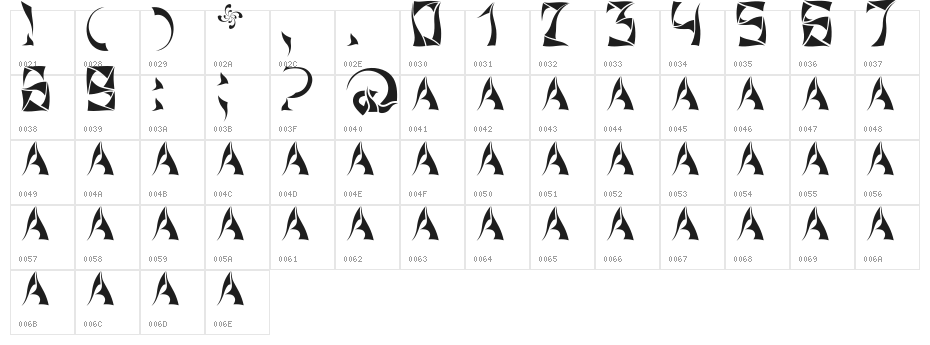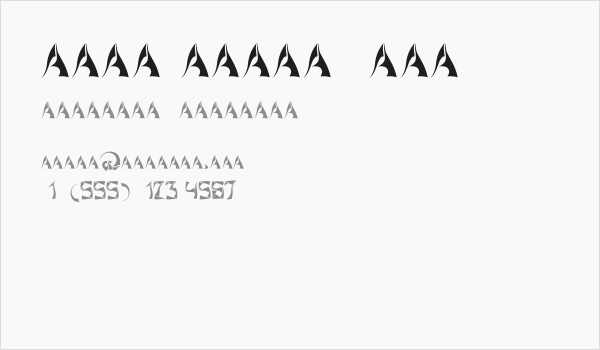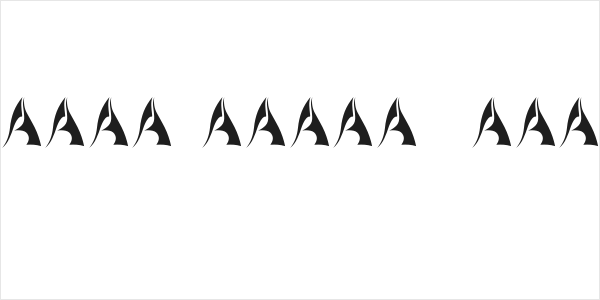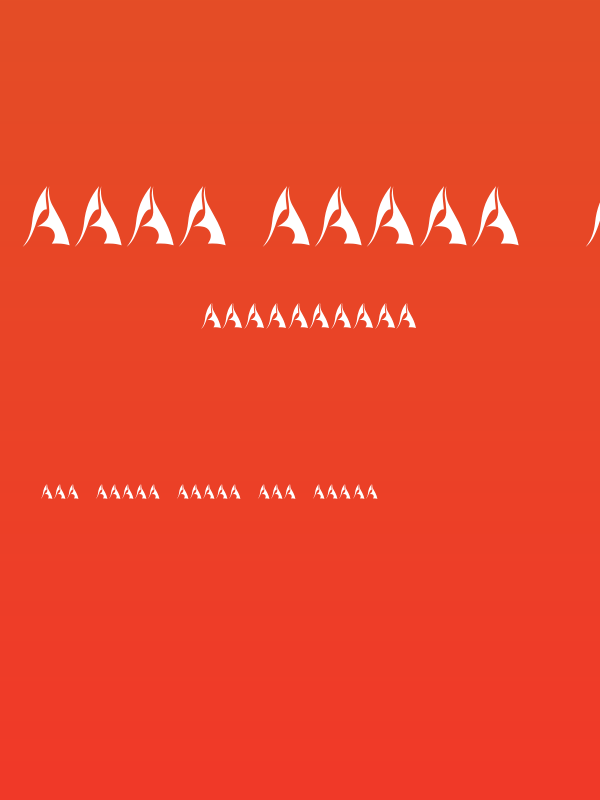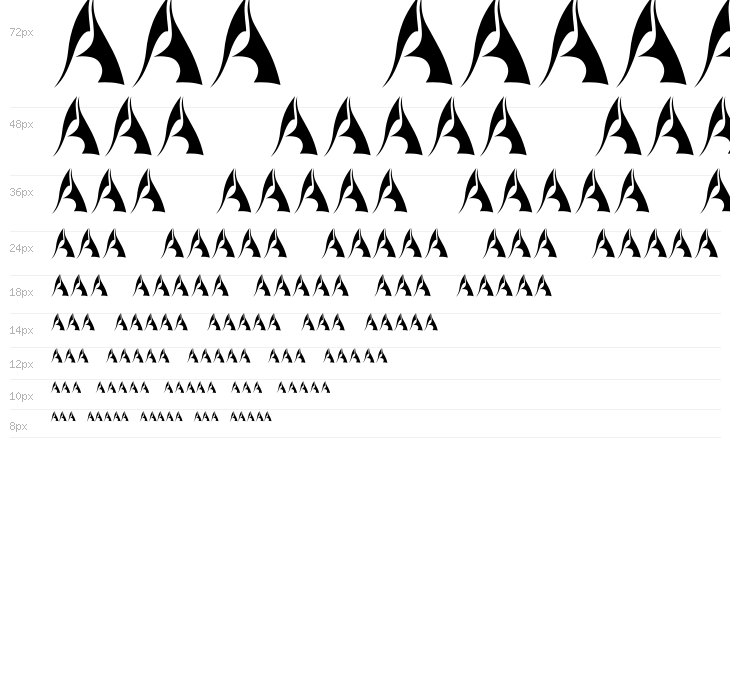
Xorx_windy Cyr Font
Xorx_windy Cyr Description
This font features a highly decorative and abstract design, characterized by sharp angles and bold, sweeping curves. Each character is uniquely stylized, creating a sense of movement and dynamism. The font's artistic flair is evident in its intricate detailing, making it stand out as a statement piece. The numbers and special characters maintain the same artistic integrity, with each symbol crafted to complement the overall aesthetic. This font is ideal for projects that require a bold and artistic touch, offering a unique visual appeal that captures attention.
| Use Case | Logos, Posters, Artistic Projects |
| Proposed Projects | Ideal for artistic posters, album covers, and creative branding projects. |